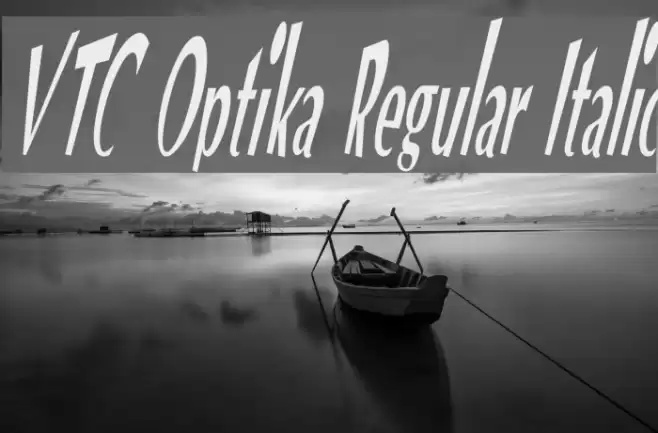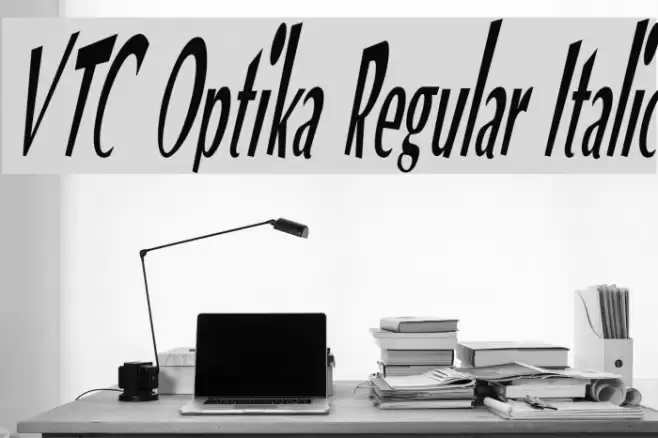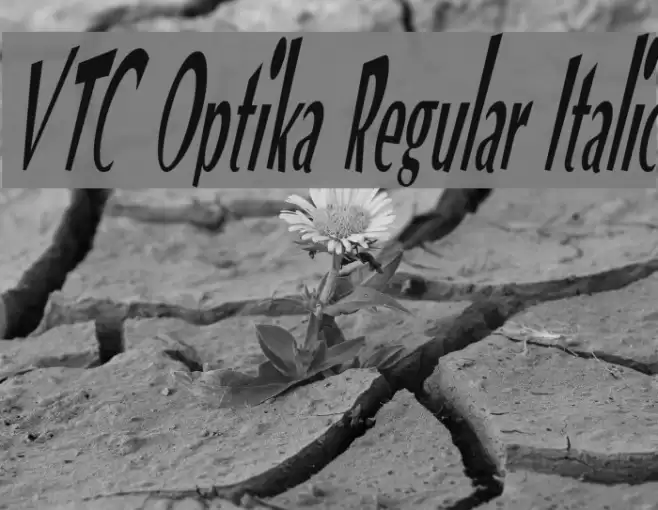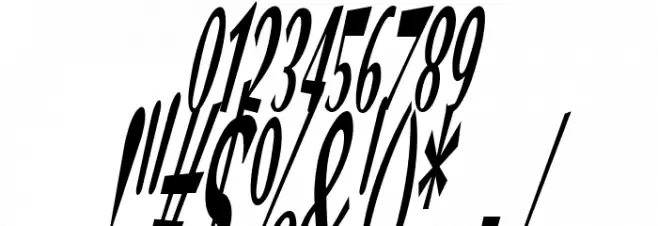
VTC Optika Regular Italic Font
VTC Optika Regular Italic Description
This font features a dynamic and energetic style with a pronounced italic slant, giving it a sense of motion and urgency. The characters are bold and slightly condensed, creating a compact and impactful appearance. The strokes are thick, providing a strong visual presence, while the overall design maintains a sleek and modern aesthetic. The uppercase and lowercase letters are well-proportioned, and the numerals are clear and legible. Special characters are included, adding versatility to the font's usage. This font's unique style makes it suitable for projects that require a bold and contemporary look.
A bold, italic font with a dynamic and modern style from Uncategorized fonts.
- Proposed Projects: Ideal for advertising, posters, branding, and any project needing a bold, modern touch.
- Character Spacing: Tight